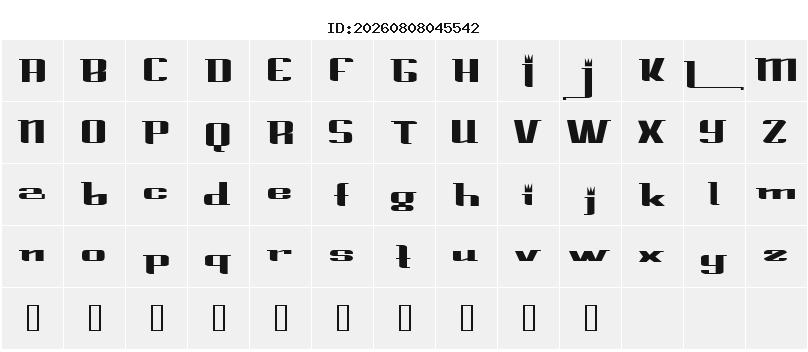
About PrinceAlbert.ttf
PrinceAlbert.ttf is a modern, elegant sans-serif font designed for ultimate readability and visual harmony. Perfect for branding, headlines, web design, and print materials.